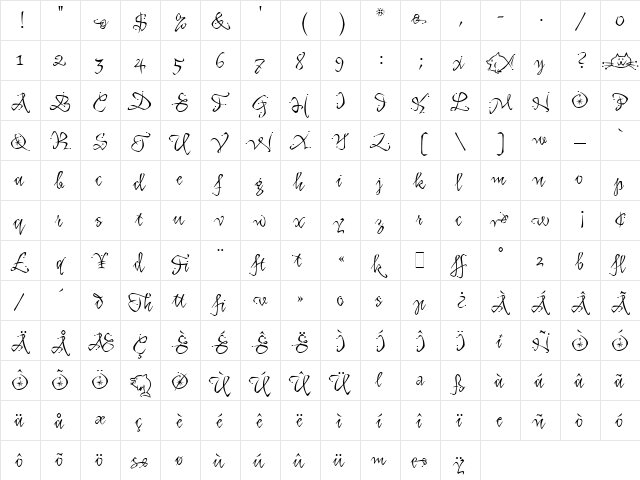
Katfish LET Regular
Design Context for Katfish LET Typeface
Katfish LET is a composed and adaptable typeface that performs quietly and consistently across a wide range of design contexts.